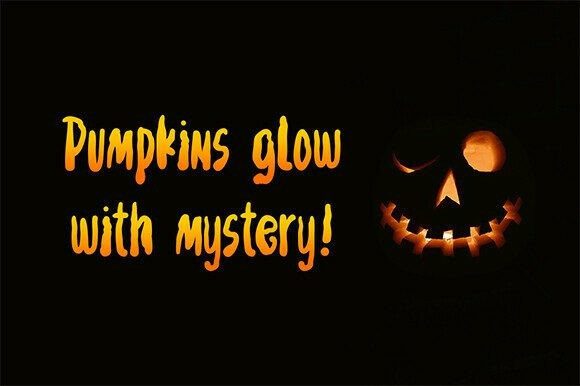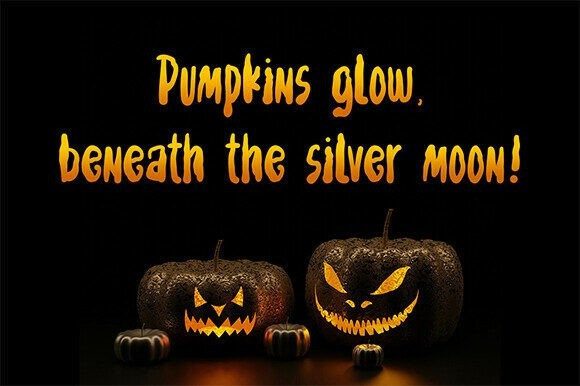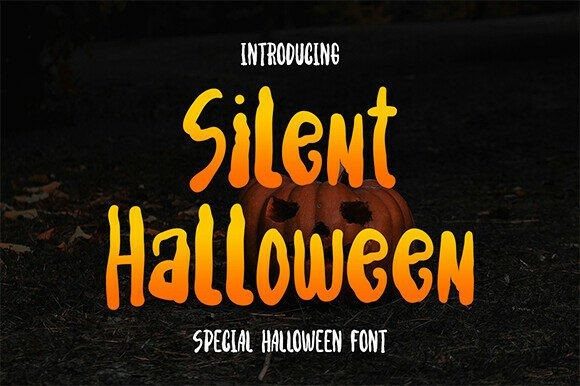
Silent Halloween Font
Silent Halloween Font is a hauntingly fun display font perfect for all your spooky-season designs. With creepy curves and eerie charm, this font brings ghostly vibes to posters, party invitations, packaging, and social media graphics.
Whether you’re crafting Halloween cards, haunted house signs, or eerie t-shirt designs, Silent Halloween adds the perfect mix of mystery and playfulness. Bring your Halloween creations to life with this chilling yet stylish typeface!